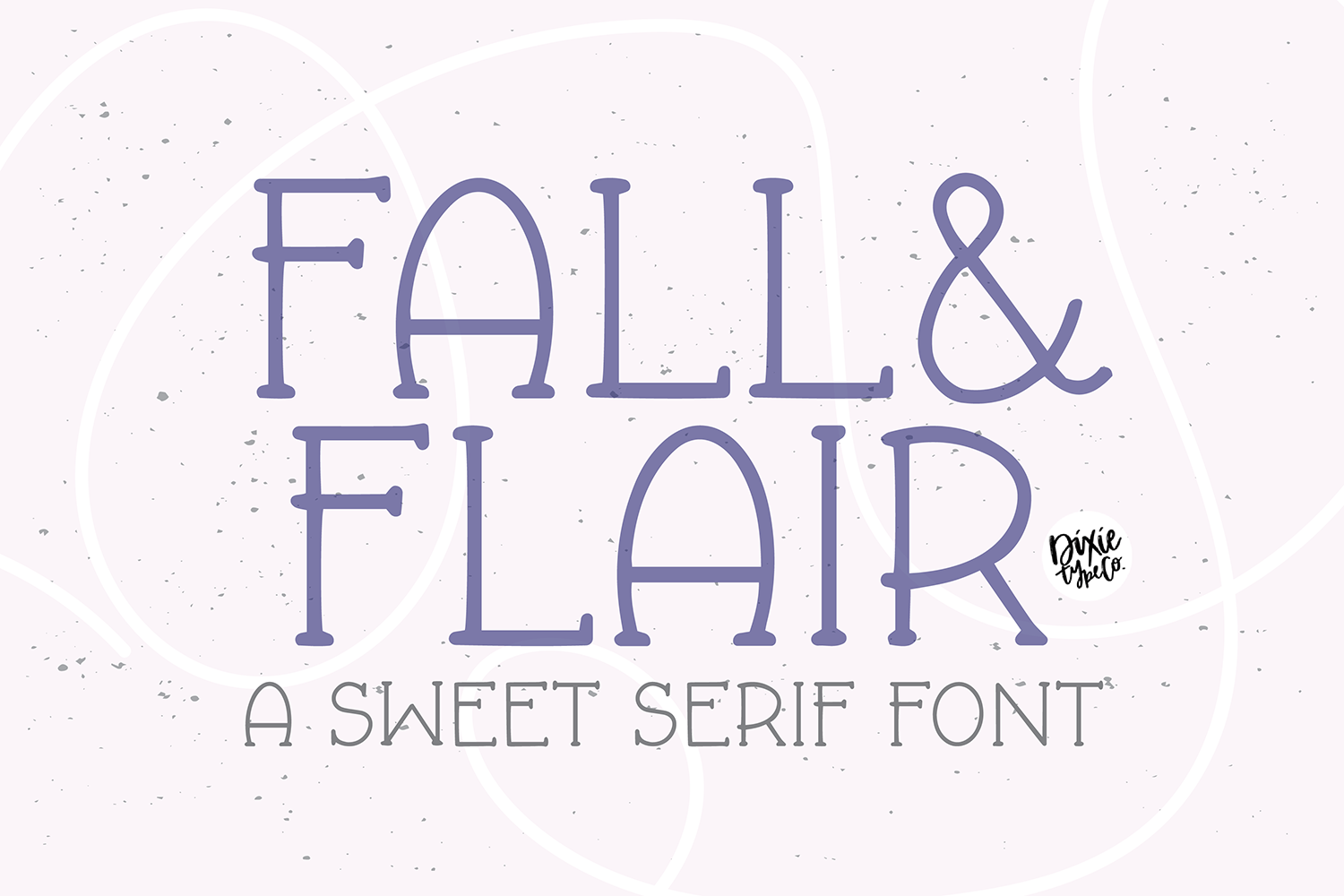
FALL & FLAIR Farmhouse Serif Font
"Fall & Flair" serif farmhouse font. Perfect for signs! This is an all-caps font.
Fall & Flair is a simple serif font that will compliment any script font. It was made with rustic farmhouse signs and the cottagecore aesthetic in mind. Check out our other farmhouse style fonts that pair perfectly with this one!
Font includes: Uppercase glyphs, numbers, basic punctuation, and international characters.